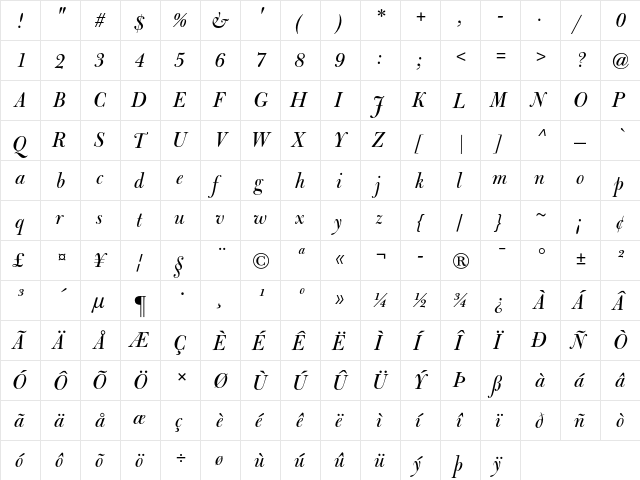
Bulmer MT Italic Display Font Preview
Bulmer MT Italic Display
Design Context for Bulmer MT Typeface
Bulmer MT is built around its visual character rather than neutral utility — its distinctive forms are designed to make an impression at display sizes. The dynamic lean of this cut emphasises speed and emphasis in any layout.
Font Pairing: Pair with a clean neutral sans-serif for body copy to let Bulmer MT's character lead without overwhelming the composition.
Pro Tip: Use Bulmer MT exclusively at display sizes — it was designed to be seen, not read at length. Let a neutral companion handle body copy.